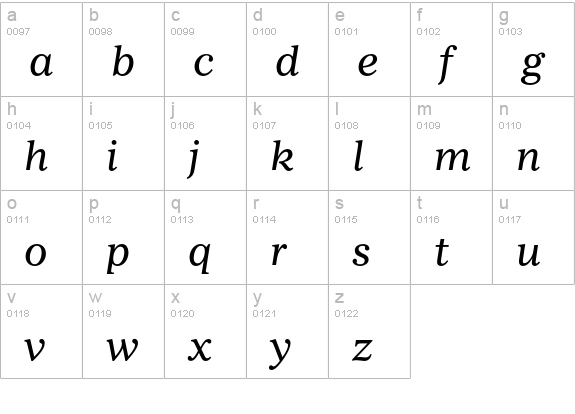
Imperial Italic is a distinctive, italic variant in the Imperial typeface family \xE2\x80\x94 well suited to design and typography projects.
Imperial Italic font combines classic elegance with modern sophistication, making it a versatile choice for any design project. Its sleek and slanted letterforms exude a sense of refinement and grace, effortlessly capturing attention and conveying a sophisticated aesthetic. This font is perfect for creating eye-catching headlines, elegant logos, and stylish invitations. Its delicate curves and graceful strokes add a touch of class to any design, while maintaining readability and legibility across various mediums. Imperial Italic font is freely available for download at FontsMarket.com. Whether you are a professional designer or simply a typography enthusiast, you can easily access this font and enhance your creative endeavors. Its availability at FontsMarket.com ensures that you can effortlessly incorporate this stunning typeface into your projects without any hassle or cost. With its timeless appeal and versatile nature, Imperial Italic font is the ideal choice for those seeking to elevate their designs to new levels of sophistication and elegance. Download it today from FontsMarket.com and let your creativity soar with this captivating typeface.